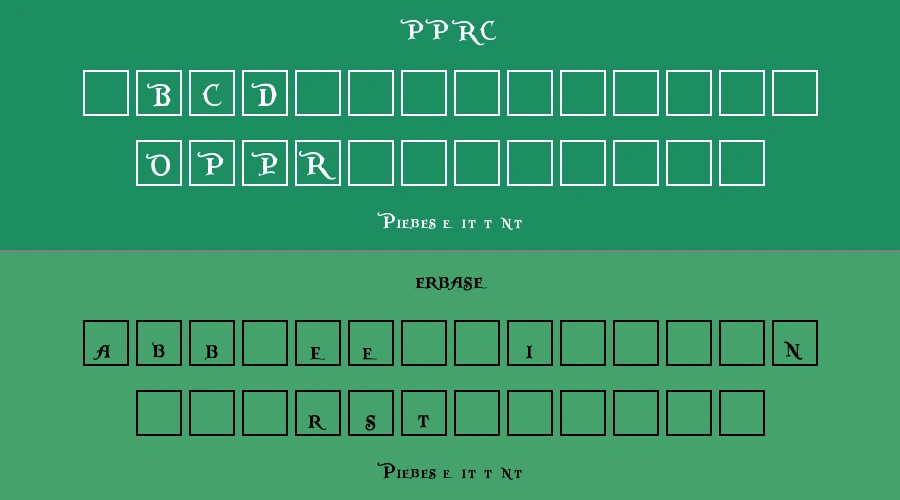
About Pieces of Eight Alt Font
Pieces of Eight Alt Font embodies typographic excellence through its masterful combination of structural clarity and artistic impact. Created for album artwork, this typeface delivers exceptional consistency and market relevance across all applications. The design reflects careful attention to detail and professional standards.
Advanced capabilities include distinctive open counters and versatile case-sensitive forms, giving designers creative control. When used in promotional materials, Pieces of Eight Alt Font exhibits remarkable weight distribution. The harmonious balance between ear formation and artistic merit sets this typeface apart.